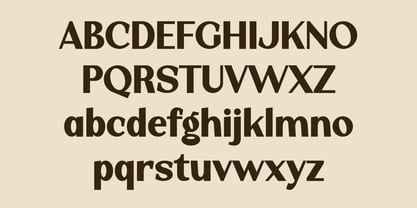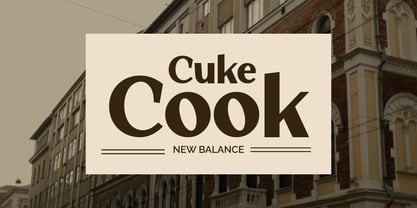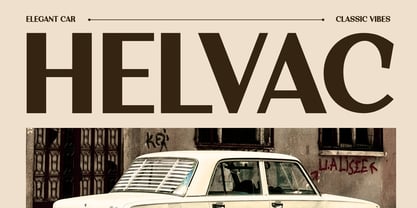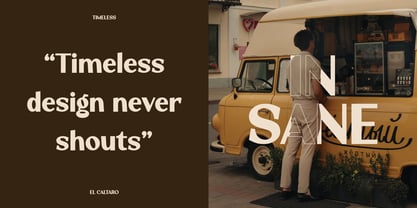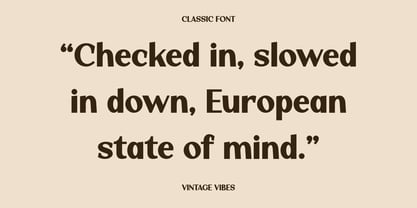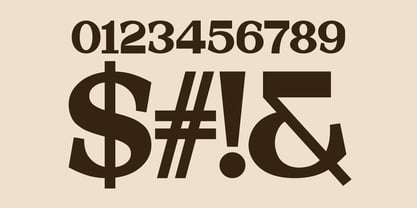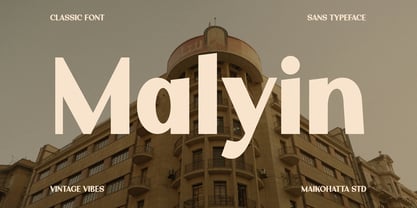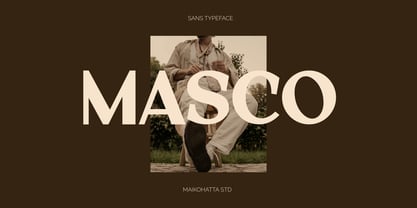
Malyin
La famille de polices Malyin a été conçue par Gilang Ternadho et publiée par Maikohatta. Malyin contient 1 styles. En savoir plus sur cette famille
Introducing our new product Malyin – Elegant Retro Typeface Malyin is a classic sans typeface with a strong vintage soul and timeless elegance. Inspired by old European architecture and retro editorial design, this font blends clean sans-serif structure with subtle classic character. Its bold yet soft letterforms make it perfect for headlines, branding, posters, logos, packaging, and editorial layouts. Malyin delivers a warm, nostalgic vibe while remaining modern, readable, and versatile for both print and digital use. Ideal for designers seeking a refined retro aesthetic with contemporary appeal.